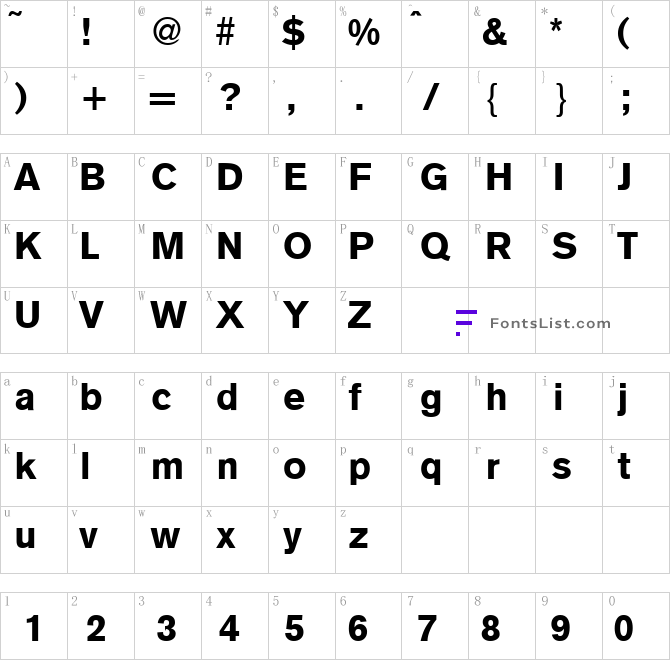
- Font Name:A750-Sans
A750-Sans-Bold.ttf is a very beautiful artistic font, A750-Sans-Bold.ttf is widely used in the design and printing of various books and pictures,A750-Sans-Bold.ttf has a strong visual impact,A750-Sans-Bold.ttf is a commonly used font in newspapers, magazines and books, and is used in posters, e-commerce Poster design, store design, logo design, font design and other fields.A750-Sans-Bold.